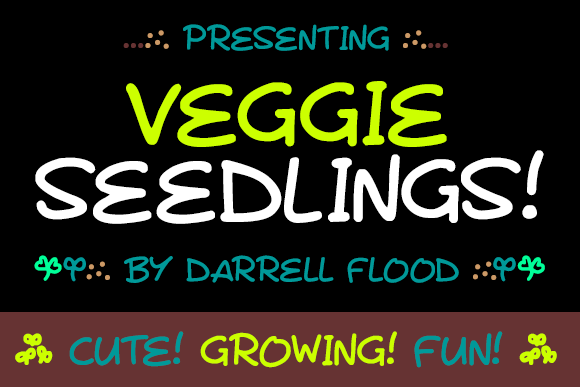
Veggie Seedlings Font
About Veggie Seedlings Font
Veggie Seedlings is a cute, hand drawn font in a felt tip marker style. Includes various seedling and sprouting images, so you can make beautiful and quirky Spring Time designs!